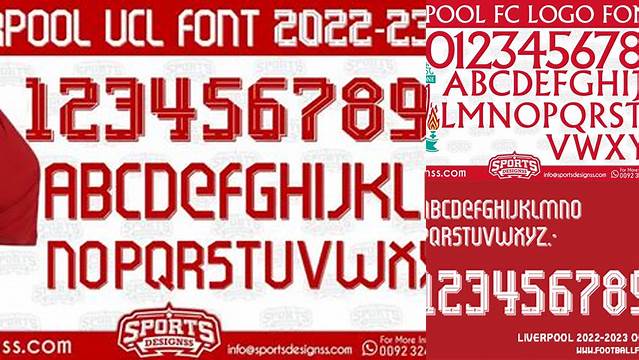
Liverpool Font 2022/23: Free Download For Your Designs
Hey guys! Are you a die-hard Liverpool fan or a designer looking to add some authentic flair to your projects? Then you've come to the right place! We're diving deep into the world of the Liverpool font 2022/23, giving you the lowdown on where to find it, how to use it, and everything in between. This font, instantly recognizable from the iconic jerseys of the Reds, is a must-have for any fan or creative looking to capture the spirit of Anfield. Let's get started!
1. What is the Liverpool Font?
The Liverpool font isn't just any typeface; it's a symbol of the club's identity, history, and passion. Officially known as the Premier League font, but affectionately dubbed the Liverpool font by fans worldwide, itβs the lettering style used on the teamβs jerseys for player names and numbers. This distinctive font has become synonymous with the club's triumphs and traditions. When you see it, you immediately think of legendary players, unforgettable matches, and the roar of the Kop. Imagine using this font to create stunning visuals for your social media, posters, or even personalized gifts for fellow Reds supporters! You can instantly inject that Anfield energy into your work, making it stand out and resonate with the Liverpool faithful. But, what exactly makes this font so special? Is it the clean lines, the bold presence, or simply the association with one of the world's most beloved football clubs? We'll explore all of that and more as we delve deeper into its origins and applications. Stay tuned, because there's a whole world of creative possibilities waiting to be unlocked with this iconic font!
2. History of the Liverpool Font
The story of the Liverpool font is intertwined with the history of the Premier League itself. Over the years, the league has seen various iterations of its official font, each with its own unique character. The current iteration, used on the Liverpool jerseys and those of other Premier League clubs, has a modern and dynamic feel that reflects the energy of the game. It's not just about aesthetics, though; the font's design also considers legibility and visibility on the pitch and on television. Think about how crucial it is for fans to easily read player names and numbers during fast-paced matches. The font designers have to consider factors like contrast, stroke thickness, and spacing to ensure clarity. The evolution of the Liverpool font mirrors the evolution of football itself, from the classic, traditional styles to the sleek, contemporary designs we see today. It's a journey through typography that reflects the changing face of the sport. But where did this specific design come from? What were the inspirations and influences behind it? We'll uncover the fascinating backstory of this iconic typeface and how it became an integral part of Liverpool's visual identity. So, buckle up, history buffs and design enthusiasts, as we journey through the annals of typographic time!
4. Liverpool Font 2022/23 Variations
The Liverpool font 2022/23, like any good typeface, isn't a one-size-fits-all kind of deal. You might encounter variations in weight, style, and even subtle design tweaks. These variations can add depth and versatility to your projects, allowing you to create different moods and effects. Think of it like Liverpool's squad depth β you need options to adapt to different situations! Some variations might be bolder for maximum impact, while others are lighter and more refined for a cleaner look. There might also be italic versions for adding emphasis or a touch of flair. Understanding these variations is key to using the font effectively. It's not just about slapping the font on your design; it's about choosing the right variation to match your message and aesthetic. We'll explore the common variations you might encounter and how to use them to your advantage. We'll also look at how these variations have evolved over time, reflecting the changing trends in typography and design. So, get ready to expand your typographic toolkit and discover the subtle nuances that make the Liverpool font so adaptable and powerful.
5. Using the Liverpool Font in Your Designs
Alright, you've got the Liverpool font downloaded and ready to go β now what? This is where the fun begins! Using the font effectively is all about understanding its strengths and limitations. It's a bold and impactful font, perfect for headlines, posters, and anything that needs to grab attention. But it's not just about shouting; it's about communicating with style and clarity. Think about how the font is used on the Liverpool jerseys β it's clean, legible, and instantly recognizable. You can apply those same principles to your own designs. Consider the color palette, the background, and the overall composition. The font should complement your design, not clash with it. We'll explore some best practices for using the Liverpool font in different contexts, from social media graphics to print materials. We'll also look at examples of how other designers have used the font creatively and effectively. So, get ready to unleash your inner designer and start creating visuals that capture the spirit of Liverpool! Remember, it's not just about using the font; it's about using it with passion and precision.
7. Liverpool Font for Cricut
Cricut crafters, get ready to personalize your projects with the Liverpool font! Whether you're making custom t-shirts, banners, or decals, this font is the perfect way to show your Liverpool spirit. Using the font with your Cricut machine is a fantastic way to add a professional touch to your creations. Just import the font into your Cricut Design Space software, and you'll be able to cut out any text or design you can imagine. Think personalized jerseys, banners for your viewing parties, or even custom water bottles with your favorite player's name and number. The possibilities are endless! We'll guide you through the process of importing and using the font in Cricut Design Space, sharing tips for optimal cutting and weeding. We'll also explore some creative project ideas that are perfect for the Liverpool font, such as creating layered vinyl designs or using the font to personalize gifts for fellow fans. So, grab your Cricut machine and get ready to unleash your creativity with the Liverpool font! Let's turn your crafting dreams into reality!
8. Liverpool Font Generator Tools
Need to quickly whip up some text in the Liverpool font without installing anything? Font generator tools are your new best friend! These online tools allow you to type in your text, select the Liverpool font (or a similar one), and generate an image or vector graphic that you can then download and use in your projects. It's a super convenient option for creating quick mockups, social media posts, or even just experimenting with different designs. Think of it as a virtual font playground! There are many different font generator tools available online, each with its own set of features and options. Some offer basic text generation, while others allow you to customize the color, size, and even add effects. We'll highlight some of the best Liverpool font generator tools out there, comparing their features and ease of use. We'll also share tips for getting the best results from these tools, such as choosing the right resolution and file format for your needs. So, if you're looking for a fast and easy way to create text in the Liverpool font, font generator tools are definitely worth exploring!
9. Alternative Fonts Similar to the Liverpool Font
Okay, so maybe you can't find the exact Liverpool font for free, or maybe you're looking for something with a slightly different vibe. No worries! There are plenty of alternative fonts out there that capture a similar spirit and aesthetic. Think bold, modern, and sporty typefaces that evoke the energy of the game. These alternatives can be great options for your projects, especially if you're looking for something unique or want to avoid any potential copyright issues. We'll explore a range of fonts that share similarities with the Liverpool font, from classic sans-serifs to more contemporary designs. We'll look at factors like letterform, weight, and spacing to help you find the perfect match. We'll also discuss the nuances of each font and how they might be used in different contexts. So, if you're feeling adventurous or just want to expand your typographic horizons, get ready to discover a world of font alternatives that capture the essence of the Liverpool style!
10. Using the Liverpool Font for Commercial Use
Planning to use the Liverpool font in a project that's going to make you some money? Awesome! But hold your horses for a second β commercial use requires a bit more consideration than personal projects. Copyright and licensing are key here. Using a font commercially without the proper license can land you in hot water, so it's crucial to do your research and ensure you're playing by the rules. This usually means purchasing a commercial license from the font's creator or distributor. The cost of a license can vary depending on the font and the scope of your project, so it's important to factor that into your budget. We'll delve into the legal aspects of using fonts commercially, explaining the different types of licenses and what they cover. We'll also provide resources for finding licensing information for the Liverpool font and its alternatives. So, if you're serious about using the font for your business or commercial ventures, make sure you're doing it legally and ethically!
11. Liverpool FC Official Font
Let's clarify something important: the Liverpool FC official font is a specific typeface used by the club for official merchandise, communications, and branding. This font is carefully chosen to represent the club's identity and is often protected by copyright. While you might find fonts that are similar, the true official font is often licensed and not freely available for download. It's like the club crest β it's a symbol that's carefully guarded and used to maintain brand consistency. Understanding the difference between the official font and similar fonts is crucial, especially if you're working on a project that aims to replicate the club's official look. We'll explore the nuances of the Liverpool FC official font, discussing its key characteristics and how it contributes to the club's overall brand identity. We'll also provide guidance on how to find fonts that are inspired by the official font while respecting copyright regulations. So, if you're aiming for authenticity, understanding the official font is the first step!
12. Premier League Font History
The Premier League font has a rich history, evolving over the years to reflect the league's changing identity and the trends in typography. From classic, traditional styles to the sleek, modern designs we see today, the font has played a crucial role in shaping the visual landscape of English football. Think about how the font is used on player jerseys, match programs, and broadcast graphics β it's a key element of the Premier League's branding. Each iteration of the font has its own unique character and reflects the era in which it was created. We'll take a journey through the history of the Premier League font, exploring the different styles that have been used and the reasons behind the changes. We'll also discuss the design considerations that go into creating a font that's both visually appealing and highly legible on the pitch and on television. So, if you're a history buff or a typography enthusiast, get ready to delve into the fascinating evolution of the Premier League font!
13. Typography in Football Design
Typography is a powerful tool in football design, and the Liverpool font is a prime example of how a typeface can become synonymous with a club's identity. From jerseys to posters to websites, typography plays a crucial role in communicating the club's message and building its brand. Think about how the font is used to convey emotions like passion, energy, and tradition. A bold, impactful font can create a sense of excitement, while a more elegant typeface might evoke a sense of history and prestige. We'll explore the key principles of typography in football design, discussing how factors like font choice, size, and spacing can affect the overall message. We'll also look at examples of how different clubs use typography to create their unique visual identities. So, if you're interested in the art of visual communication in sports, get ready to delve into the world of typography in football design!
14. Liverpool Font Licensing
Licensing is a crucial aspect of using the Liverpool font, especially for commercial projects. Understanding the different types of licenses and what they cover is essential for avoiding copyright infringement. Using a font without the proper license can have serious legal consequences, so it's always best to err on the side of caution. There are different types of licenses available, ranging from free licenses for personal use to commercial licenses that allow you to use the font in projects that generate revenue. The cost of a license can vary depending on the font and the scope of your project. We'll provide a detailed overview of Liverpool font licensing, explaining the different types of licenses and how to obtain them. We'll also offer guidance on how to determine the appropriate license for your specific needs. So, if you're planning to use the font in a commercial project, make sure you understand the licensing requirements!
15. Alternatives to Downloading Liverpool Font
Not keen on downloading fonts? No problem! There are alternatives to downloading the Liverpool font that still allow you to incorporate its style into your projects. Online font generators, as mentioned earlier, are a great option for creating quick text graphics without installing anything. Another alternative is to use similar fonts that are already available on your computer or in your design software. Many operating systems and programs come pre-loaded with a variety of fonts that share characteristics with the Liverpool font, such as bold sans-serif typefaces. We'll explore these alternatives in detail, discussing their pros and cons and providing tips for using them effectively. We'll also highlight some specific fonts that are good substitutes for the Liverpool font. So, if you're looking for a download-free way to incorporate the Liverpool style into your designs, you've got options!
16. How to Install Liverpool Font on Windows
Installing the Liverpool font on Windows is a straightforward process. Once you've downloaded the font file, typically in a .ttf or .otf format, you can install it in just a few clicks. This will make the font available for use in all your Windows applications, from word processors to design software. The easiest way to install a font on Windows is to right-click on the font file and select "Install." Windows will then automatically install the font and make it available for use. Alternatively, you can copy the font file to the Fonts folder in your Windows system directory. We'll provide a step-by-step guide to installing the Liverpool font on Windows, complete with screenshots to make the process even easier. We'll also troubleshoot common installation issues and offer tips for managing your fonts on Windows. So, if you're a Windows user, get ready to add the Liverpool font to your typographic arsenal!
17. How to Install Liverpool Font on Mac
Mac users, fear not! Installing the Liverpool font on your system is just as easy as it is on Windows. The process is slightly different, but still very simple and intuitive. Once you've downloaded the font file, you can install it using Font Book, the built-in font management application on macOS. To install a font, simply double-click on the font file, and Font Book will open and display a preview of the font. You can then click the "Install Font" button to add it to your system. We'll provide a clear and concise guide to installing the Liverpool font on Mac, walking you through each step of the process. We'll also offer tips for organizing your fonts in Font Book and troubleshooting any potential issues. So, if you're a Mac user, get ready to enhance your creative projects with the Liverpool font!
18. Liverpool Font in Jersey Design
The Liverpool font is an integral part of jersey design, contributing significantly to the overall aesthetic and identity of the team's kits. The font used for player names and numbers is carefully chosen to reflect the club's brand and create a visually appealing look on the pitch. Think about how the font needs to be legible from a distance and on television, while also conveying a sense of style and personality. The Liverpool font, like other Premier League fonts, is designed to meet these requirements, striking a balance between functionality and aesthetics. We'll delve into the role of the Liverpool font in jersey design, discussing the factors that influence font choice and the impact of typography on the overall look of the kit. We'll also explore how the font has evolved over the years, reflecting changes in fashion and technology. So, if you're fascinated by the intersection of sports and design, get ready to explore the world of Liverpool font in jersey design!
19. Liverpool Font for Social Media Graphics
Want to create eye-catching social media graphics that scream Liverpool pride? The Liverpool font is your secret weapon! Using the font in your social media posts, banners, and profile pictures is a fantastic way to connect with fellow fans and show your support for the club. Think about how the font can help you create a consistent brand identity across your social media channels. Using the same font for your profile picture, cover photo, and post graphics can create a cohesive and professional look. We'll share tips for using the Liverpool font effectively in social media graphics, discussing how to choose the right size, color, and placement for your text. We'll also explore some creative ideas for incorporating the font into your social media content, such as creating matchday graphics or celebrating player milestones. So, if you're a social media savvy Liverpool fan, get ready to take your graphics to the next level with the Liverpool font!
20. Using Liverpool Font in Logos
The Liverpool font, or a similar typeface, can be a powerful element in logo design, especially for businesses or organizations that want to convey a sense of strength, tradition, or sporting spirit. A bold, sans-serif font like the Liverpool font can create a strong and memorable logo that stands out from the crowd. Think about how the font can be used to communicate the personality and values of your brand. A clean and modern font can convey a sense of professionalism, while a more stylized typeface might evoke a sense of creativity or innovation. We'll explore the principles of using the Liverpool font in logo design, discussing how to choose the right weight, size, and color to create a visually appealing and effective logo. We'll also look at examples of logos that use similar fonts and analyze their design elements. So, if you're looking to create a logo that embodies the spirit of Liverpool, consider the power of the Liverpool font!
21. Creating Liverpool-Themed Designs
Unleash your creativity and design stunning Liverpool-themed projects using the iconic Liverpool font! Whether you're crafting posters, banners, t-shirts, or even website headers, this font can instantly infuse your work with the passion and energy of the Reds. Think about how you can combine the font with other Liverpool-related elements, such as the club crest, colors, and slogans, to create a truly authentic look. You can also use the font to personalize gifts for fellow fans or create memorable keepsakes of your favorite Liverpool moments. We'll share a plethora of creative ideas for using the Liverpool font in themed designs, from simple text-based graphics to more elaborate illustrations and compositions. We'll also provide tips for choosing the right software and tools for your project, whether you're using Photoshop, Illustrator, or a free online design platform. So, get ready to channel your inner artist and create Liverpool-themed masterpieces!
22. Liverpool Font and Club Merchandise
The Liverpool font plays a vital role in the design of club merchandise, from jerseys and scarves to mugs and phone cases. The font is a key element of the club's brand identity and helps to create a consistent and recognizable look across all merchandise items. Think about how the font is used to display player names and numbers on jerseys, as well as slogans and phrases on other merchandise. The choice of font can significantly impact the overall appeal of the merchandise, and the Liverpool font is a perfect example of a typeface that embodies the club's spirit and heritage. We'll explore the relationship between the Liverpool font and club merchandise, discussing how the font is used to create a cohesive brand image and appeal to fans. We'll also look at examples of different merchandise items that feature the font and analyze their design elements. So, if you're interested in the business of sports branding, get ready to delve into the world of Liverpool font and club merchandise!
23. Copyright Considerations for Liverpool Font
Before using the Liverpool font in your projects, it's crucial to understand the copyright considerations involved. Fonts are intellectual property and are protected by copyright law, just like software or music. Using a font without the proper license can lead to legal issues, so it's important to do your research and ensure you're using the font legally. Copyright protection typically extends to the font's design, as well as the font files themselves. This means that you may need a license to use the font, even if you've downloaded it for free. We'll provide a comprehensive overview of copyright considerations for the Liverpool font, explaining the different types of licenses and how to determine whether you need one. We'll also offer guidance on how to find licensing information for specific fonts and how to avoid copyright infringement. So, if you're serious about using fonts in your projects, make sure you understand the legal aspects!
24. Liverpool Font for Personal Projects
Using the Liverpool font for personal projects is a fantastic way to express your love for the club and add a touch of Anfield flair to your creations. Whether you're making birthday cards, posters for your bedroom, or personalized gifts for friends, the Liverpool font can help you create unique and memorable designs. Think about how you can use the font to personalize your social media profiles, create custom wallpapers for your phone, or even design your own Liverpool-themed stationery. The possibilities are endless! We'll explore a range of personal project ideas that are perfect for the Liverpool font, from simple text-based designs to more elaborate creations. We'll also provide tips for finding free or affordable resources to help you bring your ideas to life. So, if you're a creative Liverpool fan, get ready to unleash your imagination and start crafting with the Liverpool font!
25. Finding Similar Free Fonts
Looking for free fonts that capture the spirit of the Liverpool font without breaking the bank? You're in luck! There are plenty of excellent free fonts out there that share a similar aesthetic, offering a cost-effective way to incorporate a sporty and impactful typeface into your projects. Think about the key characteristics of the Liverpool font β its bold, sans-serif design, its clean lines, and its overall sense of energy. You can use these qualities as a guide when searching for similar free fonts. We'll highlight some of the best free fonts that resemble the Liverpool font, providing links to download them and tips for using them effectively. We'll also discuss the licensing terms for each font, so you can be sure you're using them legally. So, if you're on a budget but still want to create stunning designs with a Liverpool-inspired font, get ready to discover a world of free typography!
26. The Psychology of Font Choice
Font choice is more than just aesthetics; it's a powerful tool for conveying emotions and creating a specific mood. The Liverpool font, with its bold and impactful design, evokes a sense of strength, energy, and passion. Think about how different fonts can communicate different messages. A playful, handwritten font might be perfect for a children's birthday card, while a more formal, serif font might be more appropriate for a business letter. Understanding the psychology of font choice can help you make informed decisions about the typefaces you use in your projects, ensuring that your designs communicate the right message. We'll delve into the fascinating world of font psychology, exploring how different font styles can affect viewers' perceptions and emotions. We'll also discuss how to choose fonts that align with your brand identity and the overall tone of your message. So, if you want to master the art of visual communication, get ready to explore the psychology of font choice!
27. Best Font Combinations with Liverpool Font
Even the most iconic fonts, like the Liverpool font, often benefit from being paired with other typefaces to create a balanced and visually appealing design. Choosing the right font combinations can enhance the overall message and add depth and sophistication to your projects. Think about how you can use different fonts to create contrast and hierarchy, guiding the viewer's eye through the design. Pairing a bold font like the Liverpool font with a lighter, more neutral typeface can create a dynamic and engaging visual experience. We'll explore some of the best font combinations to use with the Liverpool font, providing specific examples and tips for creating harmonious typography. We'll also discuss the principles of font pairing, such as considering contrast, x-height, and overall style. So, if you want to elevate your typographic skills, get ready to discover the art of font combinations!
28. Liverpool Font Tutorials and Resources
Ready to master the art of using the Liverpool font in your designs? There's a wealth of tutorials and resources available online to help you hone your skills and unleash your creativity. From beginner-friendly guides to advanced techniques, these resources can provide valuable insights and inspiration for your projects. Think about what you want to learn β are you looking for tips on installing the font, using it in specific software, or creating certain effects? There are tutorials available for a wide range of topics, catering to different skill levels and interests. We'll compile a list of the best Liverpool font tutorials and resources, including websites, blogs, video tutorials, and online courses. We'll also highlight some specific techniques and effects that work well with the Liverpool font. So, if you're eager to learn and improve your skills, get ready to dive into a world of Liverpool font tutorials and resources!
29. Future Trends in Football Typography
The world of typography is constantly evolving, and football typography is no exception. New trends and technologies are shaping the way fonts are used in sports branding, jersey design, and other visual communications. Think about how digital technologies, such as variable fonts and dynamic typography, are opening up new possibilities for font customization and animation. We can also expect to see a continued emphasis on creating fonts that are both visually appealing and highly legible, especially in the context of fast-paced gameplay and high-definition broadcasts. We'll explore the future trends in football typography, discussing the emerging technologies and design principles that are likely to shape the look of the game in the years to come. We'll also look at examples of innovative typography used by football clubs and leagues around the world. So, if you're interested in the cutting edge of sports design, get ready to explore the future of football typography!
30. Showcase of Liverpool Font Designs
Let's wrap things up with a showcase of stunning designs that feature the Liverpool font (or similar typefaces)! This is where you can see the font in action and get inspired for your own projects. From posters and banners to websites and social media graphics, these designs demonstrate the versatility and impact of the Liverpool font. Think about how the font is used in different contexts and how it contributes to the overall aesthetic of the design. We'll gather a collection of exceptional Liverpool font designs, highlighting the key elements and techniques that make them so effective. We'll also provide links to the designers' portfolios, so you can explore more of their work. So, get ready to be amazed and inspired by the creative possibilities of the Liverpool font!